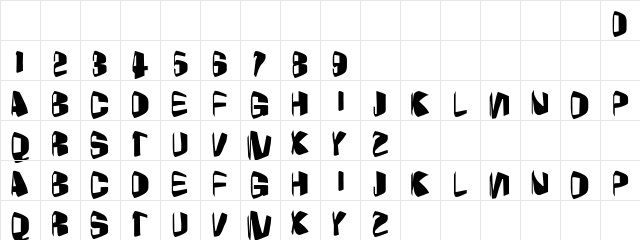
Foldz Regular
Design Context for Foldz Typeface
Foldz is a composed and adaptable typeface that performs quietly and consistently across a wide range of design contexts.